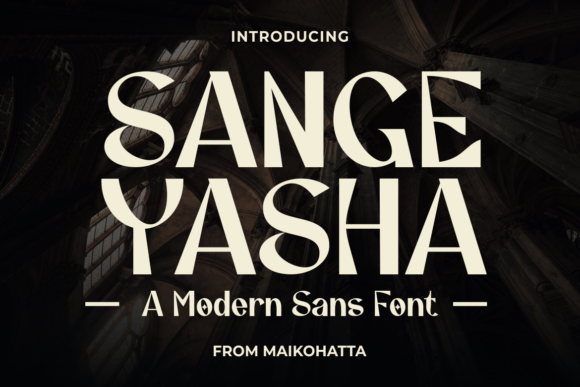
Step into the realm of typography and unveil SANGE YASHA Font - a modern sans serif font that captivates with its bold and authentic charm. This remarkable creation by maikofarazhatta opens up a world of possibilities for your branding projects, logo designs, and creative endeavors.
SANGE YASHA Font exudes an aura of confidence and strength, making it the perfect choice for those seeking to make a lasting impression. Its clean lines and sharp angles command attention, while its subtle curves add a touch of elegance and sophistication.
Whether you're crafting a striking logo, designing an eye-catching template, or creating an immersive esport experience, SANGE YASHA Font will elevate your work to new heights. Its versatility shines through in a wide range of contexts, adapting seamlessly to your creative vision.
Imagine your logo adorned with the bold strokes of SANGE YASHA Font, standing out as a beacon of individuality and power. Visualize your templates transformed into dynamic and engaging layouts, captivating your audience with their modern and stylish appeal. Envision your esport designs pulsating with energy and excitement, as SANGE YASHA Font propels your team to victory.
SANGE YASHA Font is more than just a font; it's an artistic tool that empowers you to express your unique style and creativity. Dive into the world of typography with SANGE YASHA Font and unleash the boundless potential of your imagination. Embrace the power of bold and authentic expression, and let your designs speak volumes.